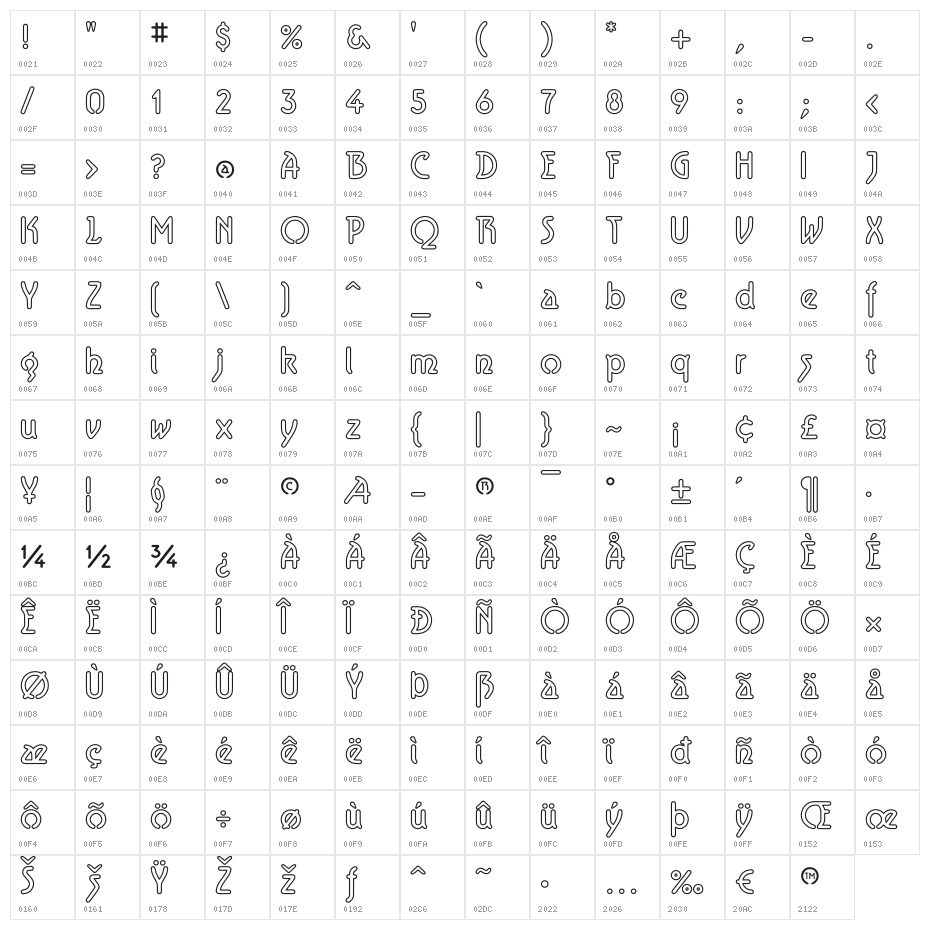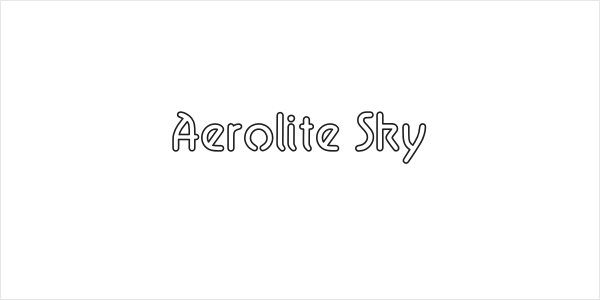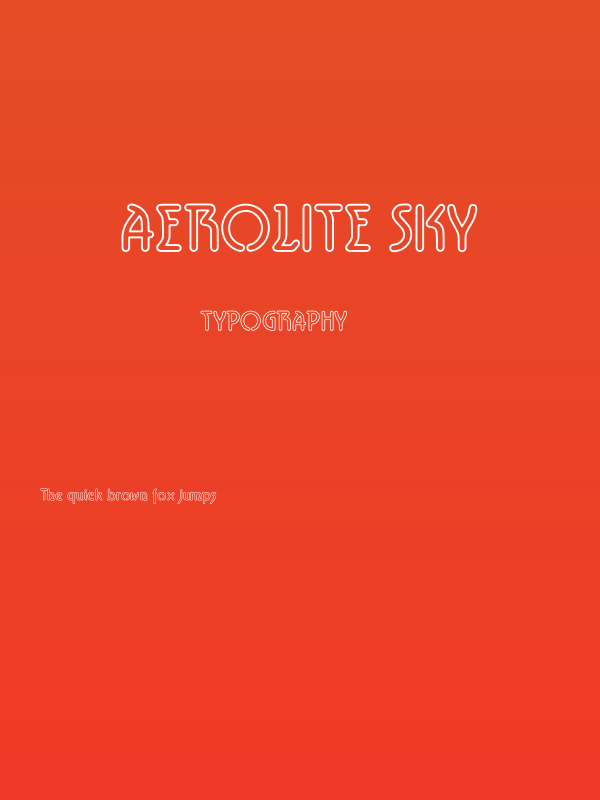
Aerolite Sky Font
Aerolite Sky Description
This font features a unique, futuristic design with a hollow, outlined style that gives it a modern and airy appearance. The characters are geometric and symmetrical, with clean lines and rounded edges that create a sense of openness and space. The uppercase and lowercase letters maintain a consistent style, with some characters exhibiting playful curves and angles. The numerals are bold and easily distinguishable, matching the overall aesthetic of the font. Special characters are creatively designed, adding to the font's distinctive look. This font is ideal for projects that require a modern, tech-inspired feel.